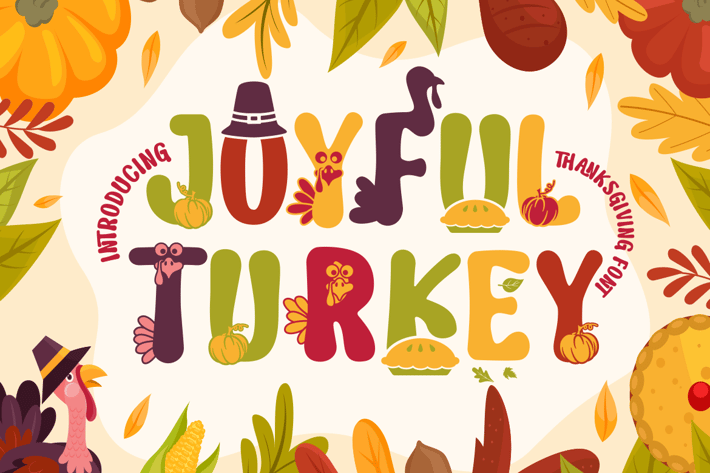
Joyful Turkey - Display Thanksgiving Font
Joyful Turkey - Display Thanksgiving Font is a charming and playful typeface designed to embrace the spirit of Thanksgiving. Its quirky and rounded characters add an element of fun and warmth to your designs, making it the perfect choice for projects that celebrate this special holiday.
This font includes seven delightful decorative variations with Thanksgiving-themed elements such as turkey, pumpkin, pie, leaves, and more.
Ideal for Thanksgiving-themed designs, including invitation cards, birthday invites with a Thanksgiving theme, party decorations, logos, stickers, packaging, children's books, magazines, and more, Joyful Turkey brings a delightful and heartwarming touch to your creative projects.
With its whimsical and cheerful style, this font captures the essence of gratitude and celebration, making it an ideal choice for designs that reflect the Thanksgiving spirit.